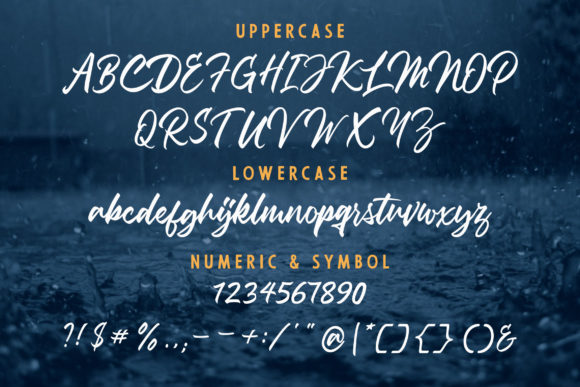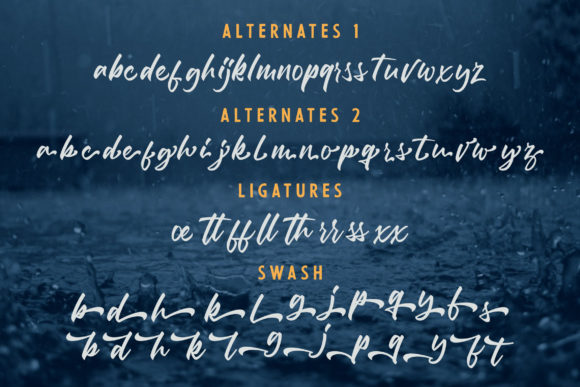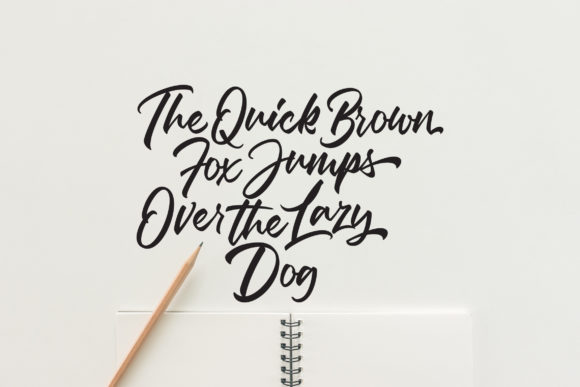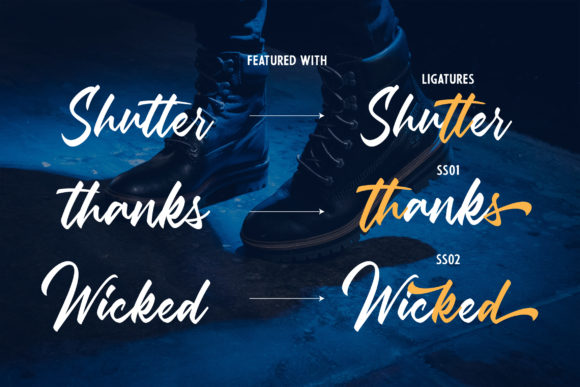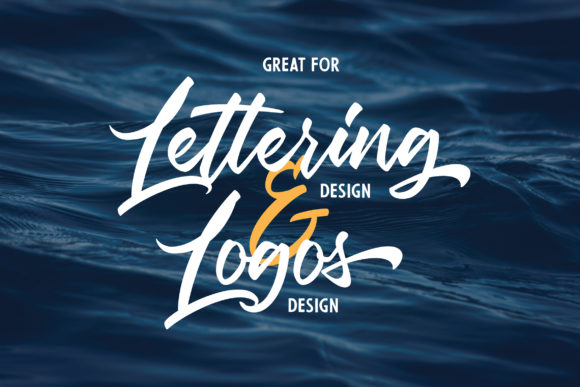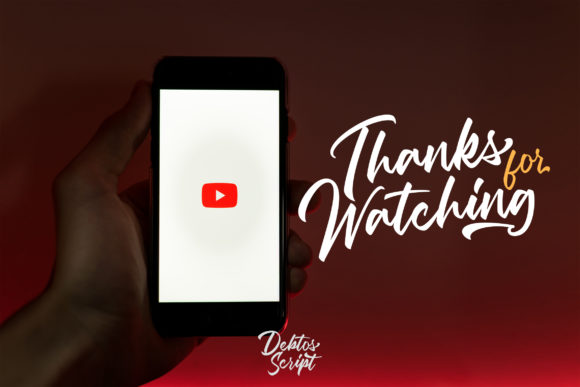
Discover the Elegance of Debtos Font: A Timeless Script Font for Designers and Crafters
Are you on the hunt for a font that exudes elegance, sophistication, and a touch of classic charm? Look no further than Debtos Font, an inspiring script font that is sure to elevate your design projects to new heights. Handcrafted with love and attention to detail, Debtos was inspired by the timeless beauty of classic posters, making it an excellent choice for designers and crafters seeking to add a vintage flair to their work.
The Story Behind Debtos Font
Debtos Font is more than just a typeface; it’s a piece of art that pays homage to the golden age of poster design. Its creator, with a passion for typography and design, meticulously crafted Debtos to capture the essence of classic scripts while infusing it with a modern twist. The result is a font that feels both nostalgic and fresh, perfect for a wide range of applications.
What Makes Debtos Font Stand Out?
- Unique and Handmade: Unlike many fonts available today, Debtos is a handmade script font. This means that every letter, every curve, and every stroke was carefully crafted by hand, giving Debtos its unique character and charm.
- Inspired by Classic Posters: The inspiration from classic posters is evident in Debtos’s elegant and flowing lines. It brings to mind the grandeur of vintage advertising, making it perfect for projects that require a touch of nostalgia.
- Versatile: Debtos is incredibly versatile. Whether you’re designing a logo, creating a letterhead, making posters, designing apparel, crafting labels, or working on any other project, Debtos can be used in a multitude of contexts.
- Easy to Read and Elegant: Despite its ornate appearance, Debtos remains highly legible, making it suitable for both display and body text. Its elegance shines through in every word, adding a level of sophistication to any design.
Using Debtos Font in Your Design Projects
The possibilities are endless when it comes to using Debtos Font. Here are a few ideas to get you started:
- Logos and Branding: Create a memorable logo that stands out with Debtos. Its unique and elegant appearance can help your brand leave a lasting impression.
- Posters and Flyers: Add a vintage touch to your posters and flyers. Debtos’s classic feel can help your promotional materials stand out and capture attention.
- Apparel and Merchandise: Design stunning apparel and merchandise with Debtos. Whether it’s t-shirts, mugs, or tote bags, Debtos can add a touch of elegance to your designs.
- Labels and Packaging: Elevate your product labels and packaging with Debtos. Its sophisticated look can add value to your products and make them more appealing to customers.
Tips for Working with Debtos Font
- Pair it Wisely: Debtos pairs well with clean sans serif fonts or classic serifs. Experiment with different combinations to find the perfect match for your design.
- Adjust Kerning and Tracking: For optimal readability, especially in longer texts, adjust the kerning and tracking. This ensures that your text looks polished and professional.
- Play with Colors and Textures: Enhance your design by experimenting with different colors and textures. Debtos looks stunning in metallic colors, pastels, and rich jewel tones.